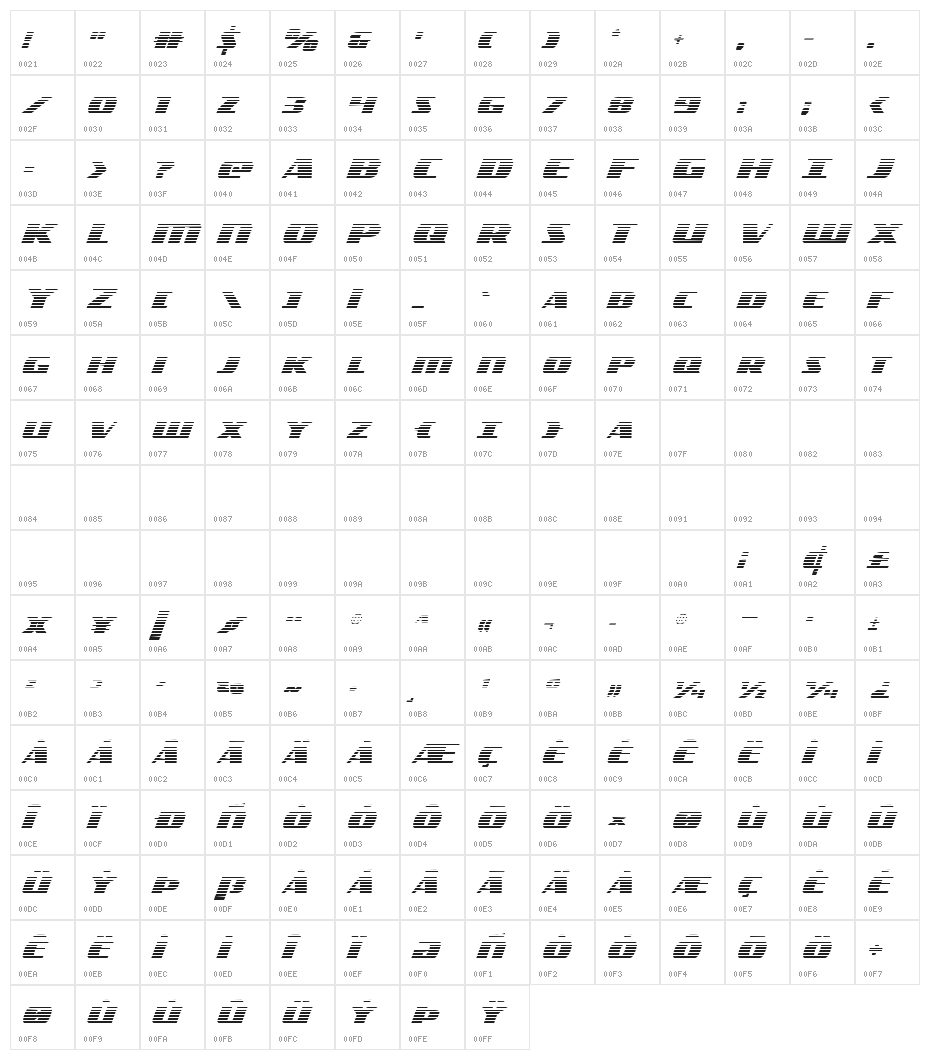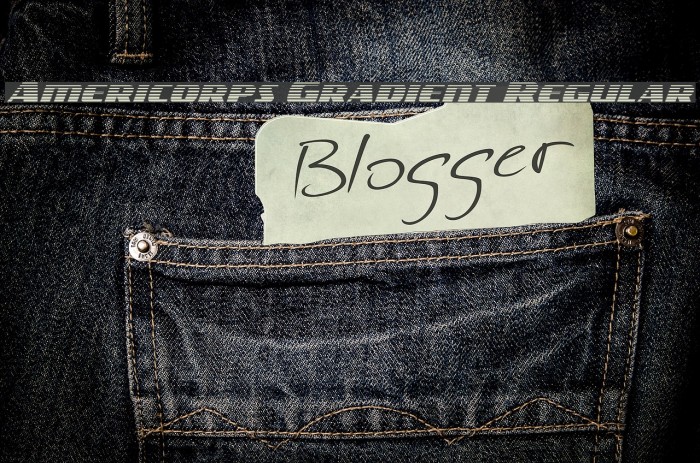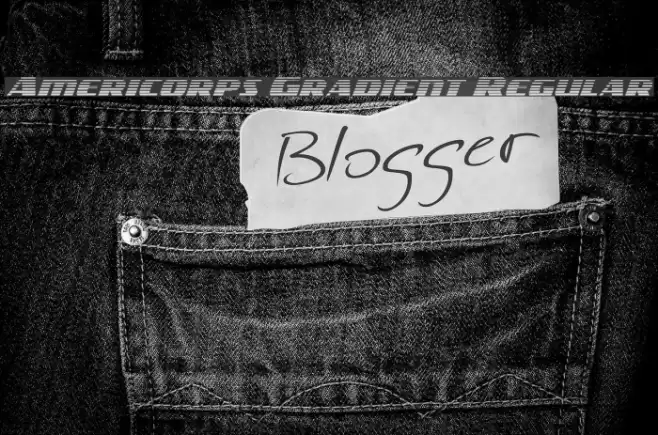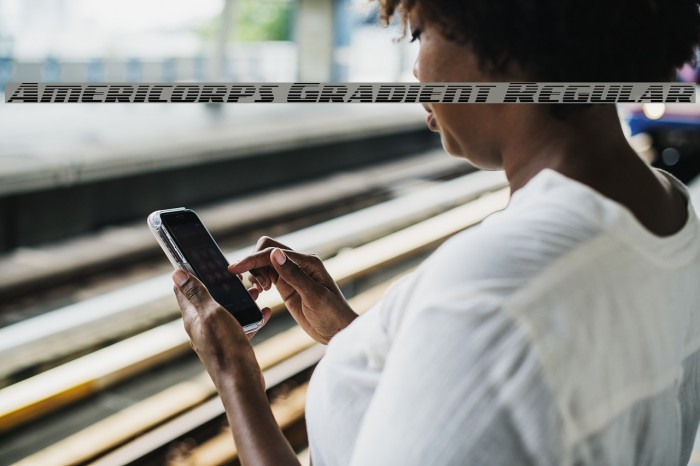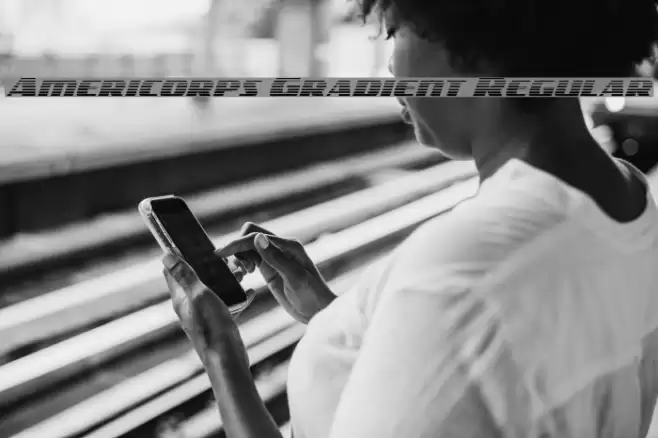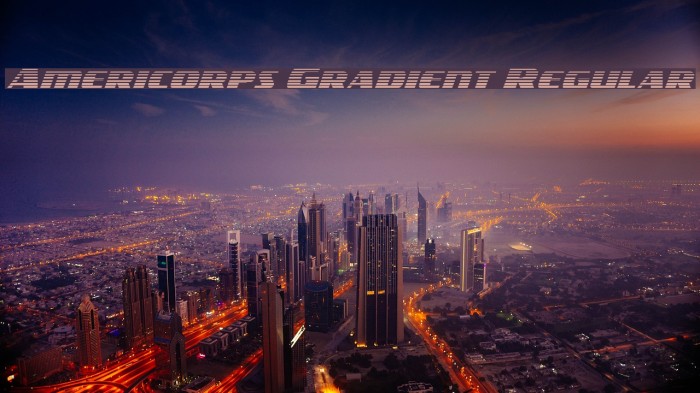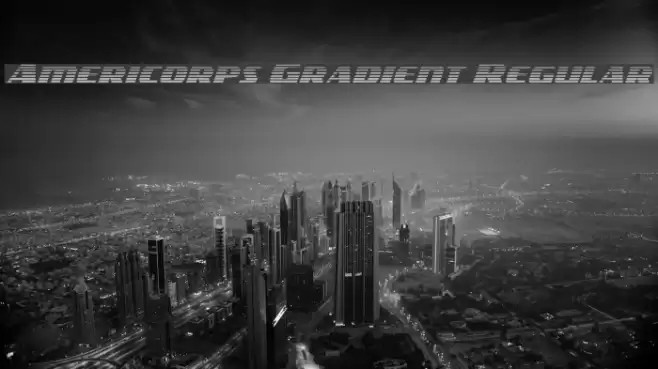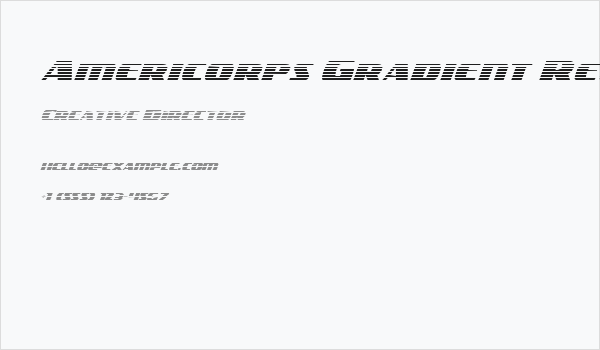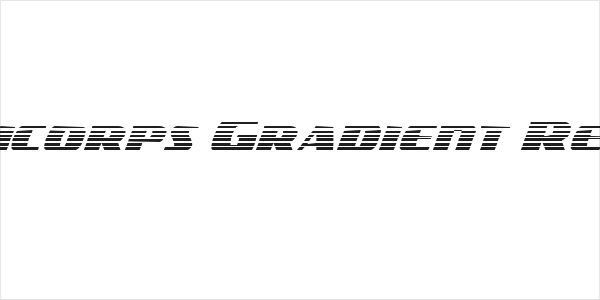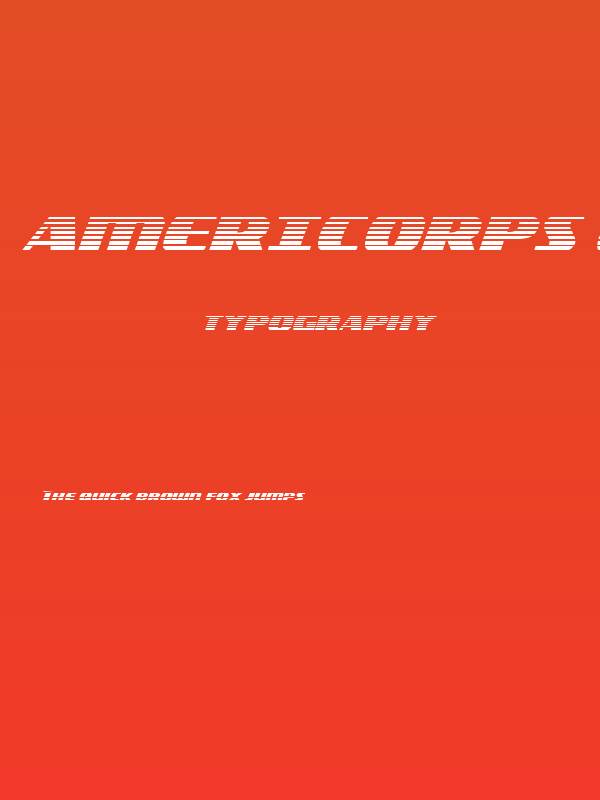
Americorps Gradient Regular Font
Americorps Gradient Regular Description
This font features a bold, modern design with a unique gradient effect created by horizontal lines cutting through each character. The uppercase and lowercase letters maintain a consistent style, giving the font a cohesive look. The numerals and special characters follow the same pattern, ensuring uniformity across all elements. The font's distinct style makes it stand out, with its futuristic and dynamic appearance. The spacing between characters is tight, enhancing its compact and impactful look. This font is ideal for projects that require a strong visual presence.
| Proposed Projects | Ideal for branding, posters, and digital media where a strong, modern aesthetic is desired. |